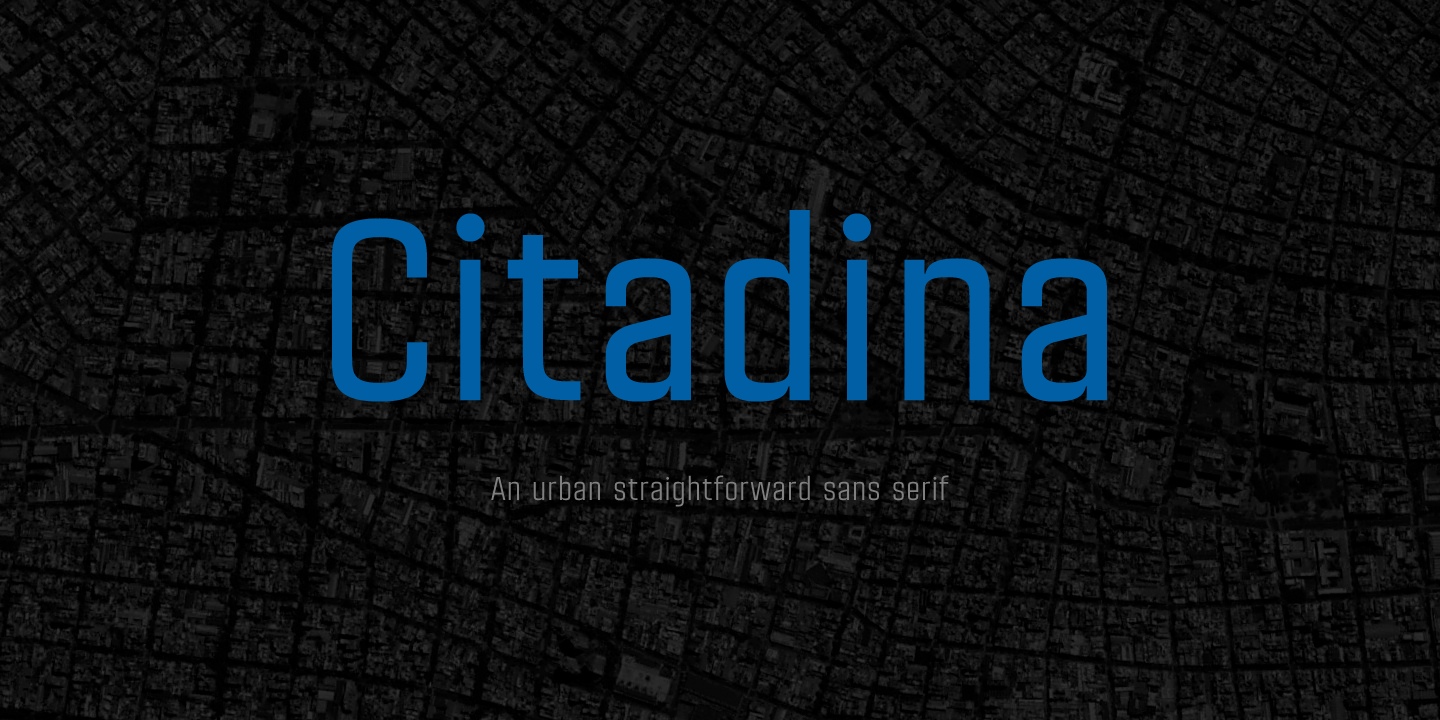
Citadina Font
Citadina Font is perfect for urban lifestyle brands, metropolitan fashion magazines, sophisticated city guides, contemporary municipal communications, modern urban planning firms, and cosmopolitan cultural organizations. Its metropolitan character makes it ideal for city tourism boards, urban real estate companies, sophisticated restaurant chains, metropolitan art galleries, modern transportation systems, and any project requiring urban sophistication with metropolitan elegance and cosmopolitan city appeal.
This font is exciting because it captures the refined elegance and sophisticated energy of cosmopolitan city life while delivering exceptional functionality for organizations celebrating urban culture, metropolitan lifestyle, and the dynamic sophistication that defines modern city living. The elegantly crafted letterforms reflect the refinement and cultural richness found in the world's great cities, creating typography that feels both internationally sophisticated and locally connected.
The Citadina Font family typically includes Light, Regular, Medium, and Bold weights with urban alternates, metropolitan ligatures, and cosmopolitan elements that enhance its sophisticated personality. This comprehensive collection enables urban professionals to create distinguished brand systems that maintain city credibility while offering flexibility for various metropolitan applications requiring both urban authority and contemporary cosmopolitan positioning.
Whether you're developing identity systems for urban lifestyle companies, creating materials for metropolitan cultural events, or designing promotional content for sophisticated city services, Citadina Font Free Download delivers the urban sophistication and metropolitan elegance that resonates with cosmopolitan audiences seeking refined city experiences and sophisticated urban culture. Its refined presence ensures memorable brand recognition across digital platforms and print materials, making it perfect for websites, mobile applications, and urban campaigns that celebrate metropolitan lifestyle, cosmopolitan culture, and the transformative power of sophisticated city living with contemporary urban standards and authentic metropolitan charm.